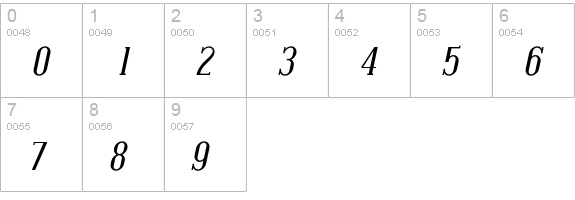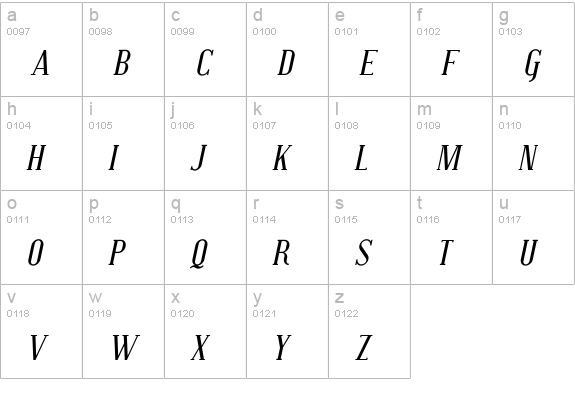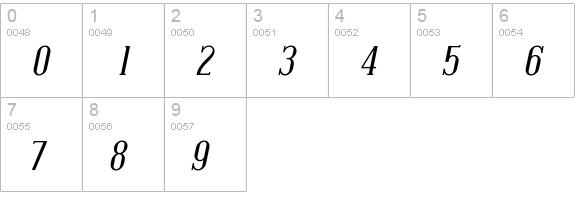
Covington SC Italic is a distinctive, italic variant in the Covington typeface family \xE2\x80\x94 well suited to design and typography projects.
Covington SC Italic is a stylish and elegant font that exudes sophistication and charm. Its sleek and slanted design adds a touch of modernity to any project, making it perfect for use in branding, editorial design, and more. The flowing curves and distinctive serifs of Covington SC Italic create a sense of luxury and refinement, making it ideal for conveying a sense of elegance and class. What sets Covington SC Italic apart is that it is available for free download at FontsMarket.com. This means that you can enhance your designs with this premium font without having to spend a dime. Whether you're working on a personal project or a professional one, Covington SC Italic is a versatile and eye-catching font that will elevate your work to the next level. Download Covington SC Italic today and see the difference it can make in your designs.